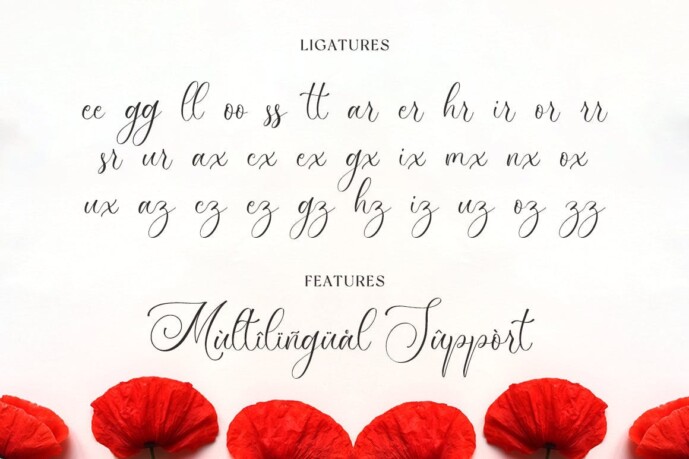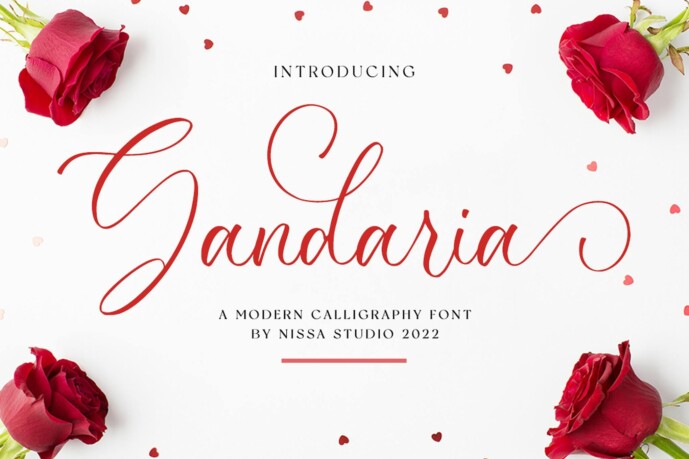
Gandaria Font
Designer: NissaStudio
Gandaria Font is a charming and delicate typeface that exudes elegance and class. This font is perfect for those who need a beautiful and refreshing look for their designs.